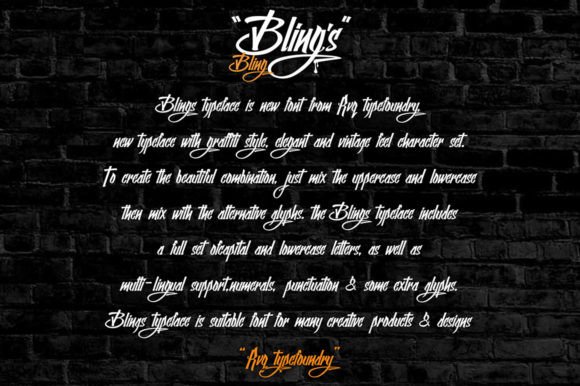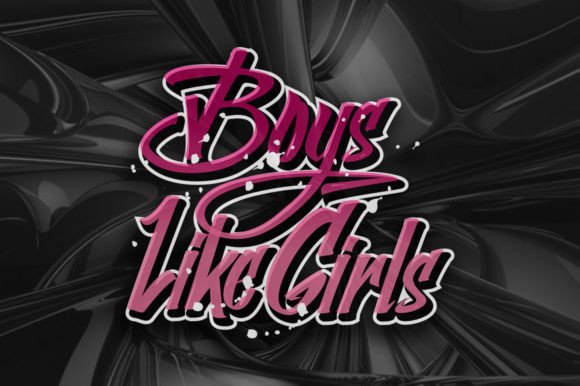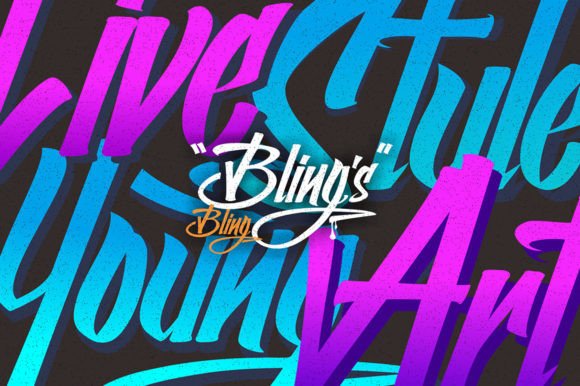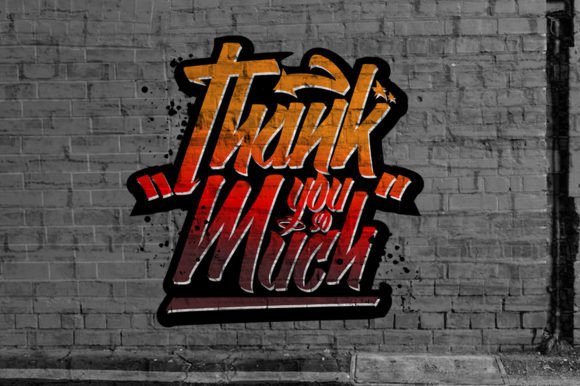
Unleash Your Creativity with Blings Font
Remember that moment when a spark of inspiration hits you, and you can’t wait to bring your creative vision to life? That’s exactly what happens when you stumble upon the perfect font – and for designers, Blings Font is just that.
| 👤 Author | Rvq Type Foundry |
Blinging with a modern, urban-style handwritten flair, Blings Font is the ultimate choice for creating eye-catching logos, branding, and quotes that leave a lasting impression. Every letter in Blings Font has a unique and beautiful touch, making your design truly come alive!
As a designer, you understand the importance of selecting the right font to elevate your work. Blings Font is more than just a font – it’s a tool that helps you convey your message in a visually stunning way. With its versatility and charm, Blings Font is a valuable addition to any designer’s toolkit.
Bling Font Key Features
- Font Style: Bling Font is a luxury, modern script font with a touch of elegance and sophistication.
- Unique Characteristics: Bling Font features intricate flourishes, ornate details, and a luxurious feel that sets it apart from other script fonts.
Designer Review: Blings Font
When I first laid eyes on Blings Font, I was immediately drawn in by its ✨ flashy and attention-grabbing aesthetic. The font’s use of ornate details and bold lines effectively creates a sense of luxury and sophistication, making it perfect for use in high-end branding and marketing materials.
The font’s versatility is another major plus, as it can be used in a variety of settings, from product labels to event invitations. Its wide range of customization options also makes it easy to adapt to different design styles and color schemes.
- ✨ Unique and eye-catching design
- ✨ High level of customization options
- ✨ Suitable for a wide range of applications
- ⚠️ May be too flashy for some design styles
- ⚠️ Can be difficult to read in smaller sizes
- ⚠️ Limited support for certain languages
Overall, I would give Blings Font a solid 4 out of 5 stars. While it has some limitations, its unique design and versatility make it a valuable addition to any designer’s toolkit. With some careful consideration and customization, Blings Font can add a touch of luxury and sophistication to any design project.
The Blings Font is ideal for:
- Celebratory and party invitations
- Wedding and event designs
- Luxury and high-end branding
For optimal results, use the Blings Font in conjunction with bold, bright colors and decorative graphics.